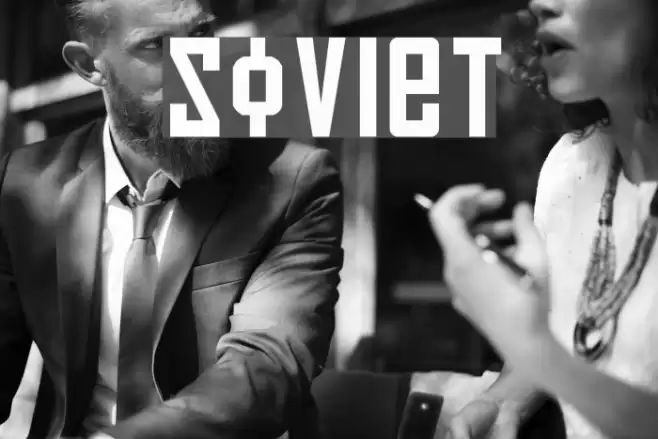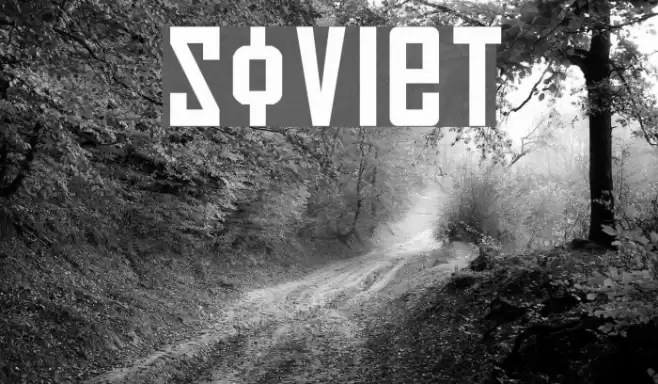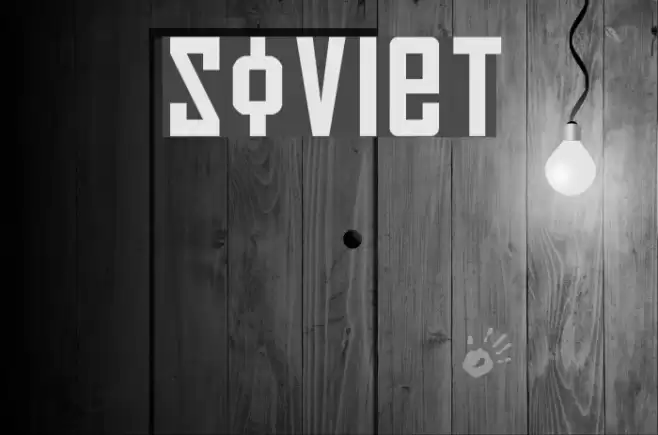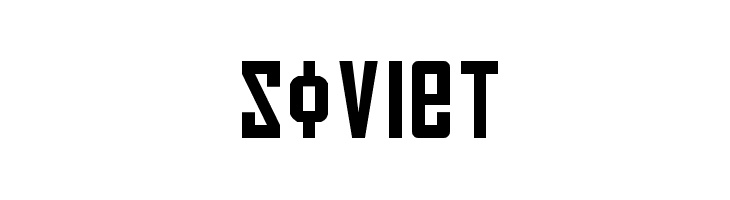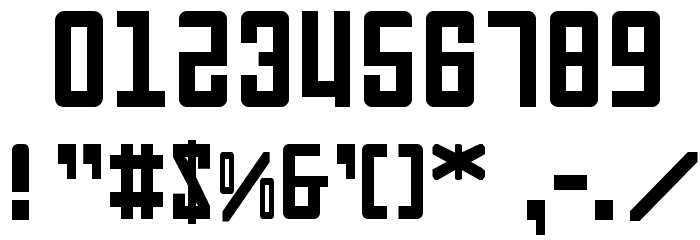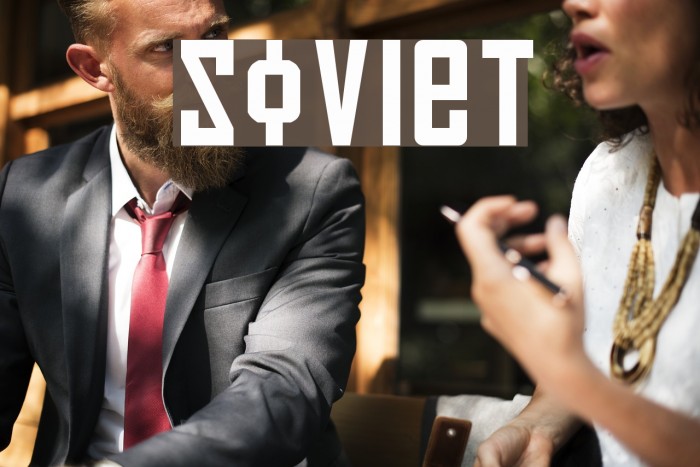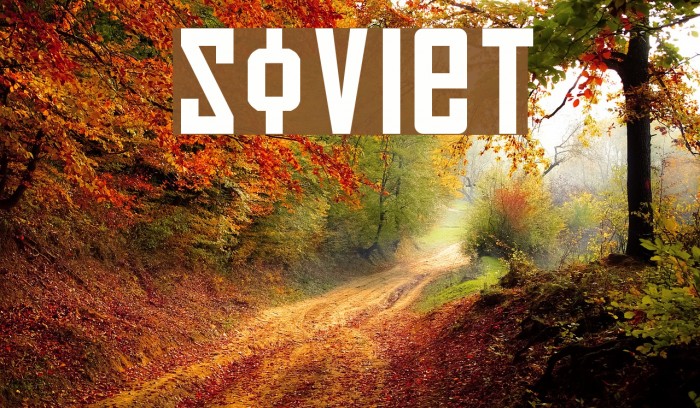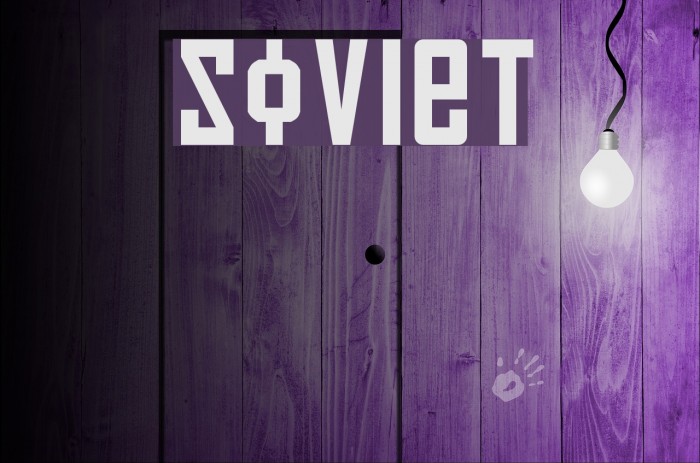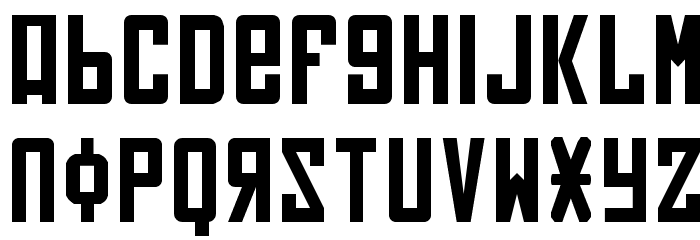
Soviet Font
Soviet Description
This font features a bold and geometric design, characterized by its strong, angular lines and blocky appearance. The uppercase letters exhibit a uniform height and width, creating a sense of balance and stability. The lowercase letters maintain the same geometric style, with consistent stroke thickness throughout. Numbers and special characters follow the same design principles, ensuring a cohesive look across all glyphs. The font's distinct style is reminiscent of industrial or constructivist aesthetics, making it suitable for projects that require a bold and impactful visual presence.
A bold, geometric font with strong, angular lines and a blocky appearance from Capitals fonts.
- Proposed Projects: Ideal for posters, logos, branding, and any design work that requires a strong, industrial aesthetic.
- Overall Style: Industrial, Constructivist